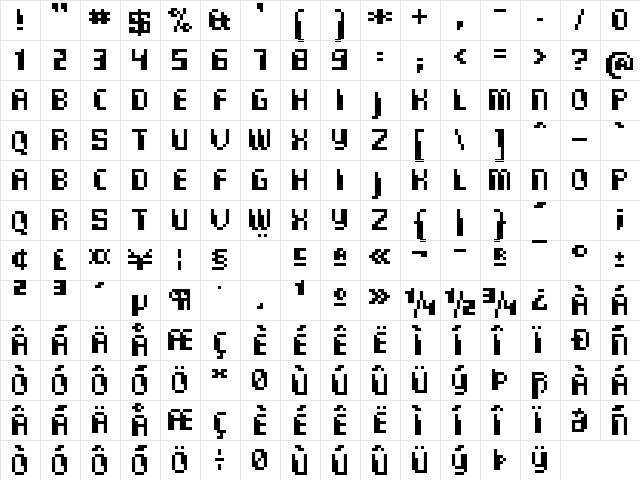
Commo Monospaced Regular
Design Context for Commo Monospaced Typeface
Commo Monospaced brings the precise, column-aligned rhythm of monospaced typography to designs that value technical clarity and systematic order.
A natural fit for code editors, technical documentation, developer-focused branding, and terminal-inspired UI.